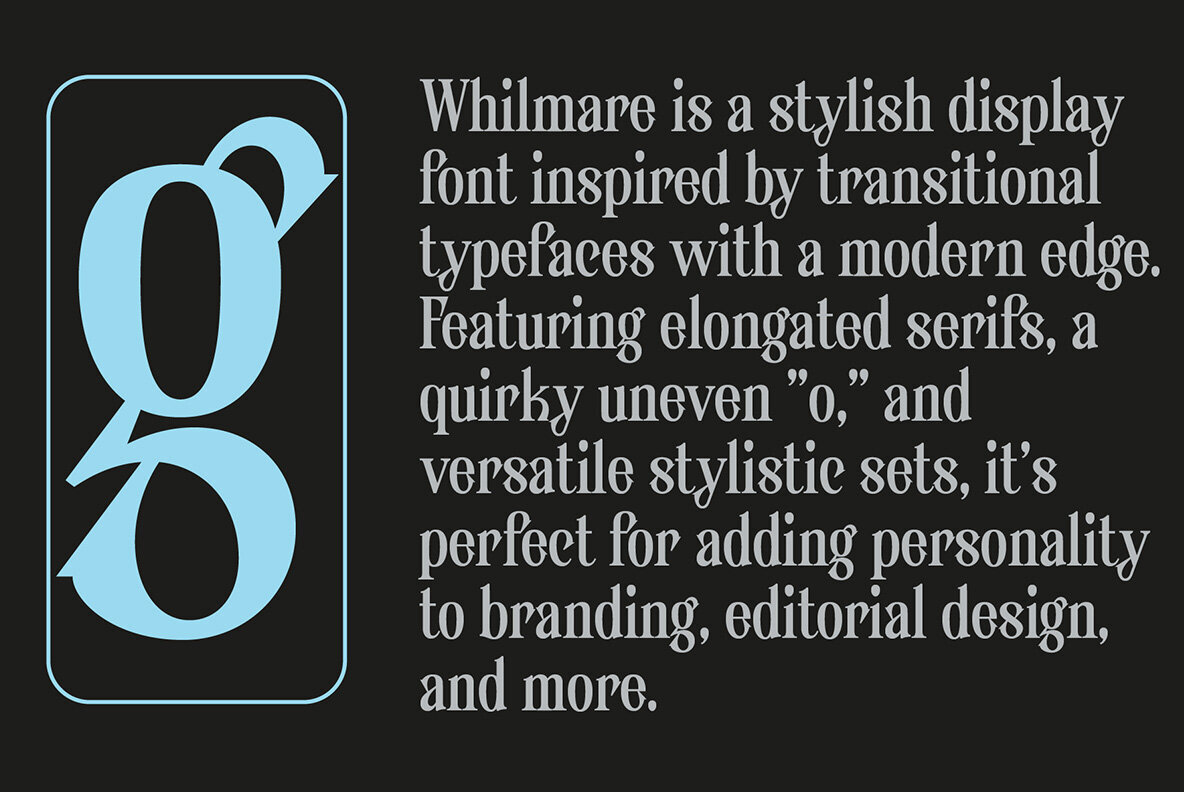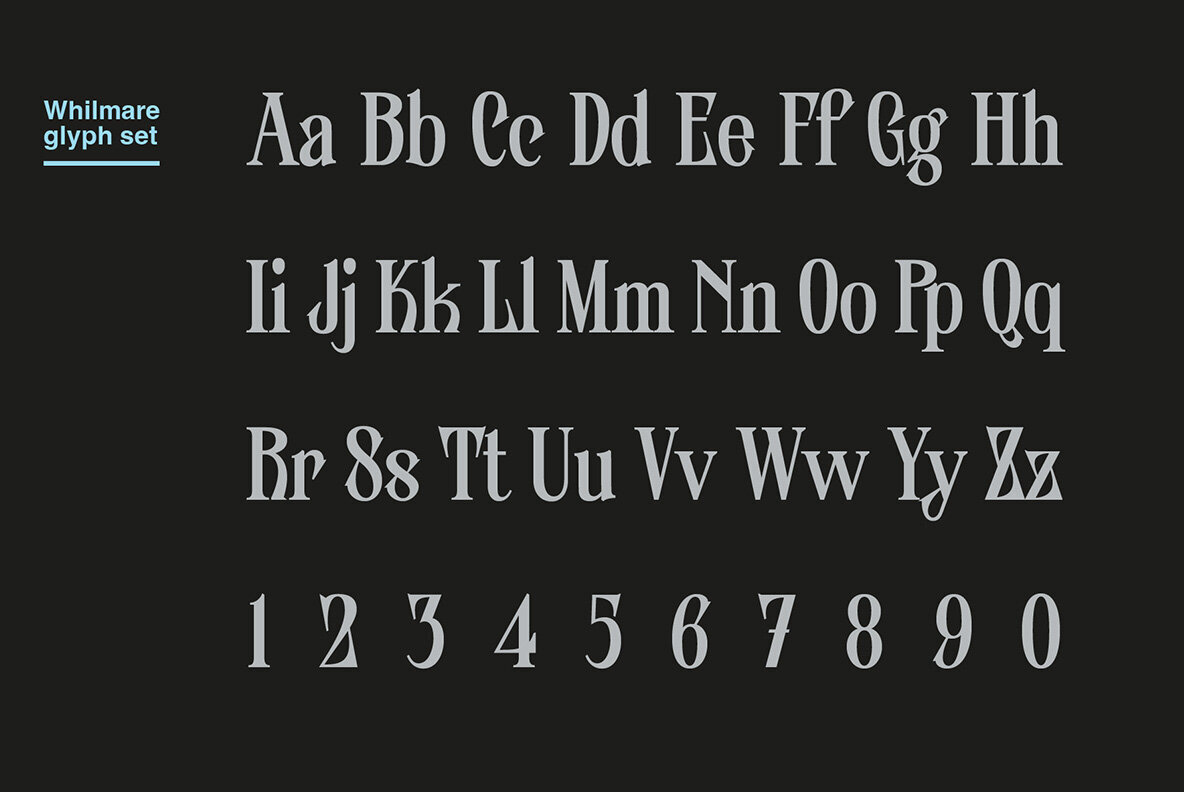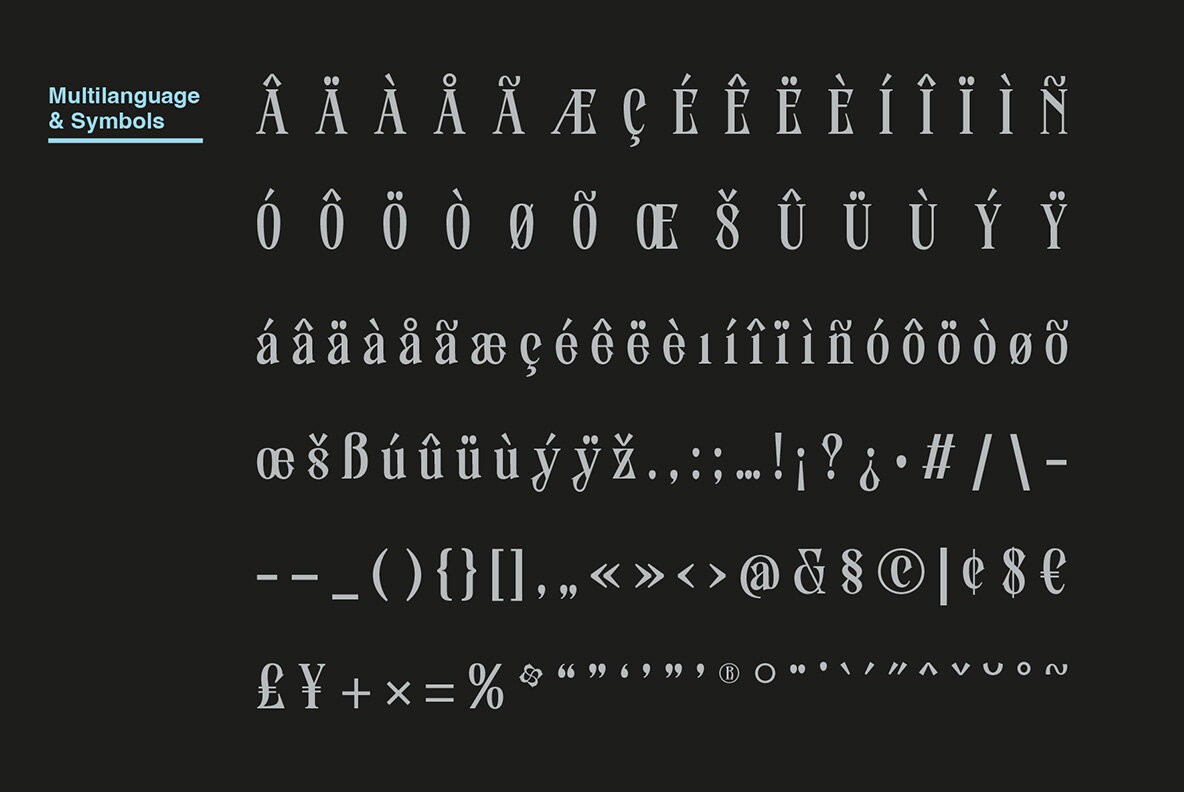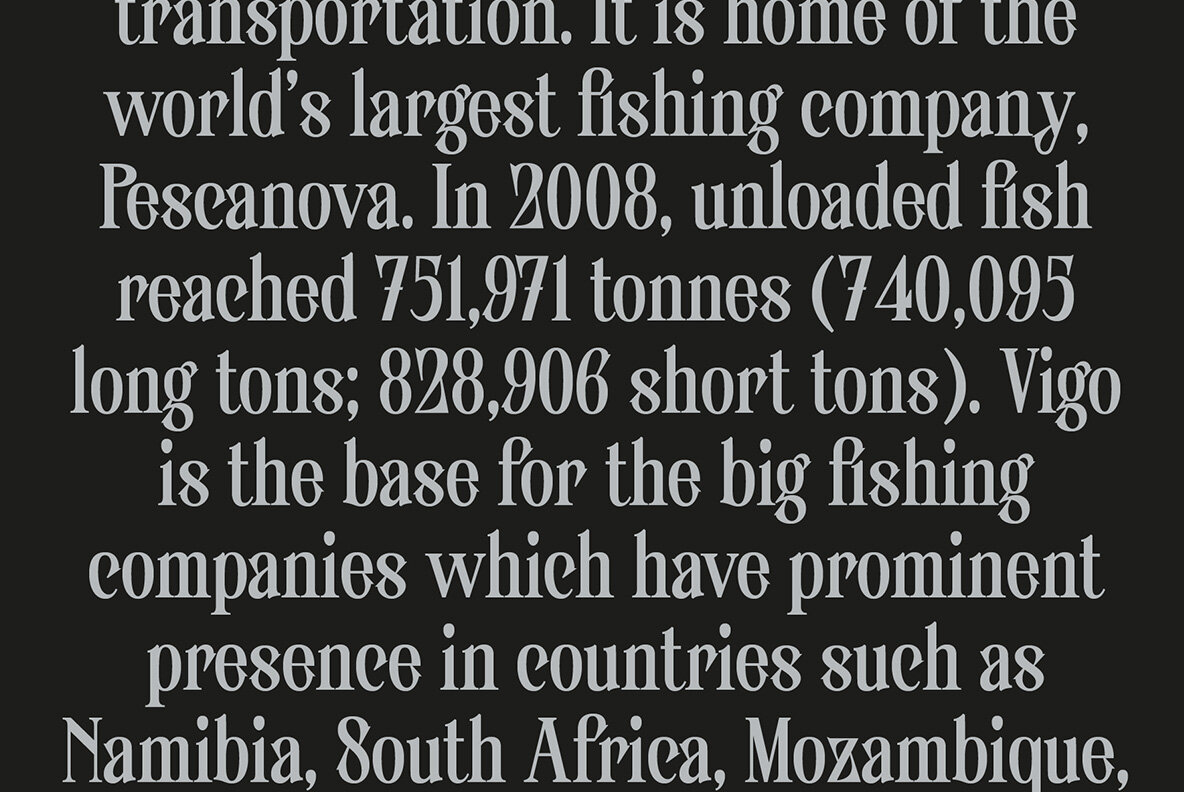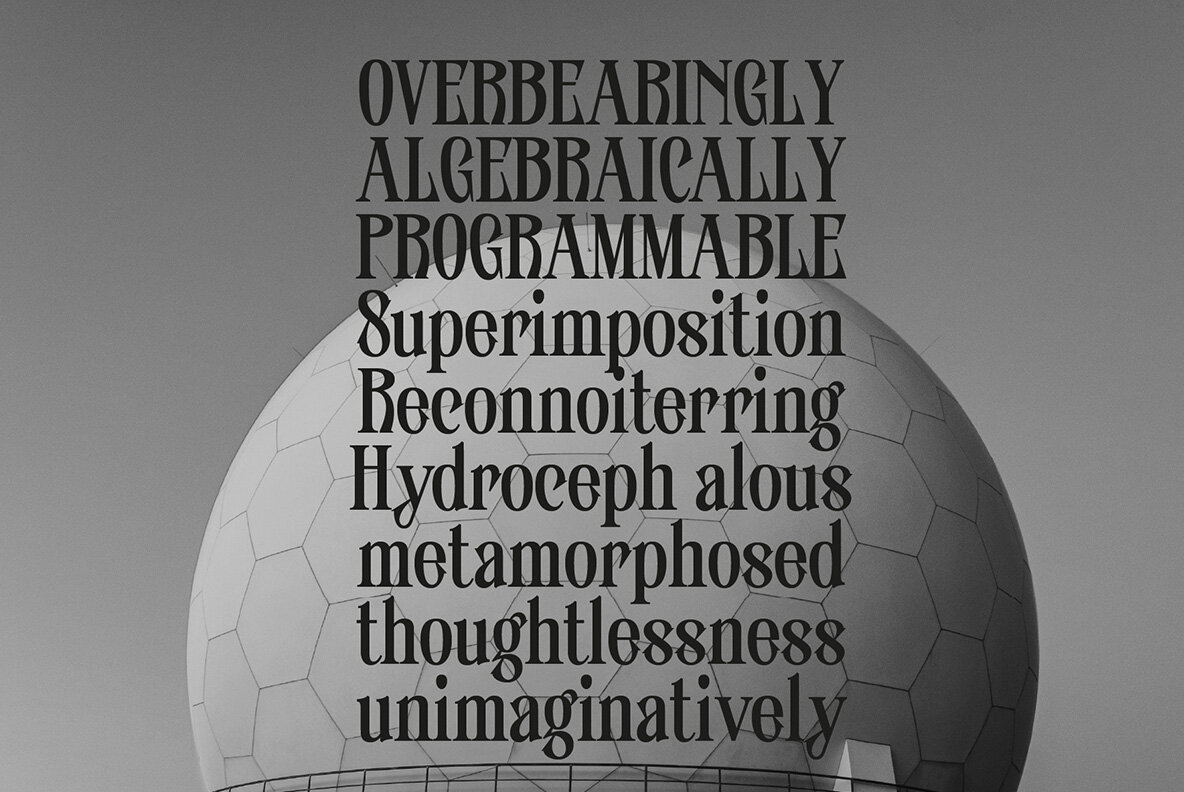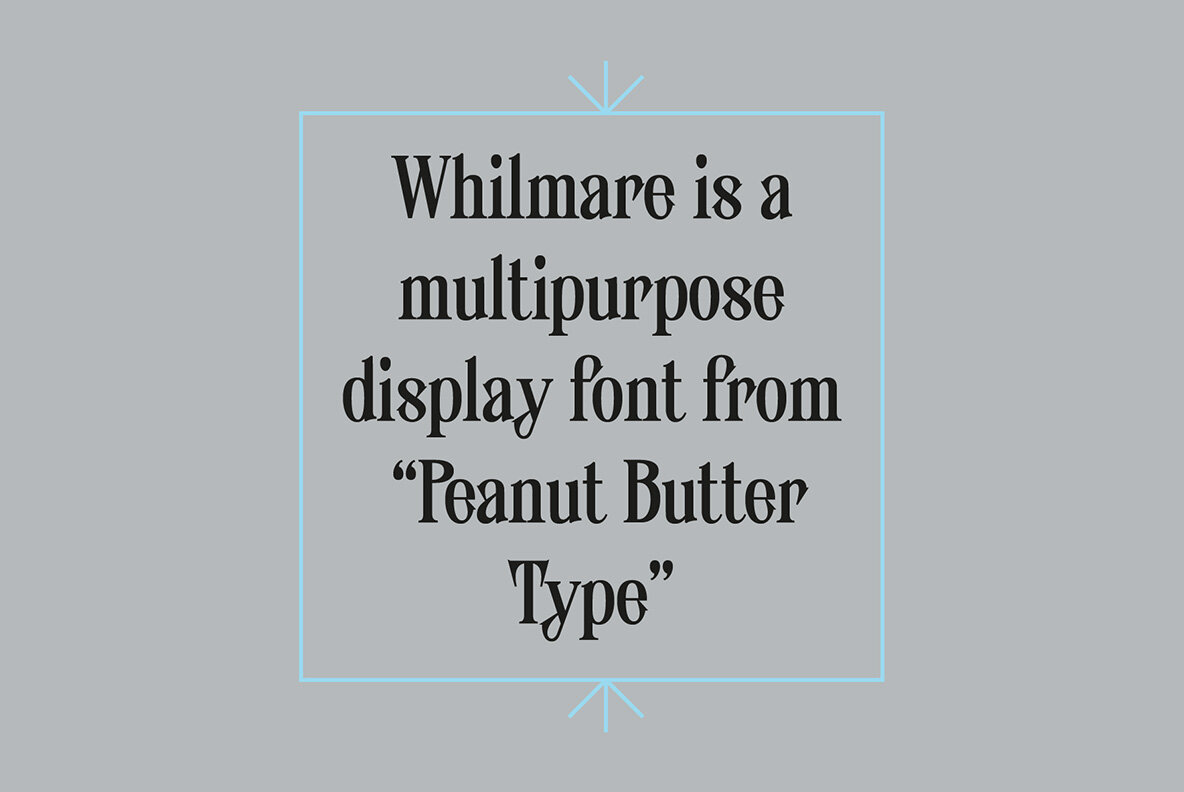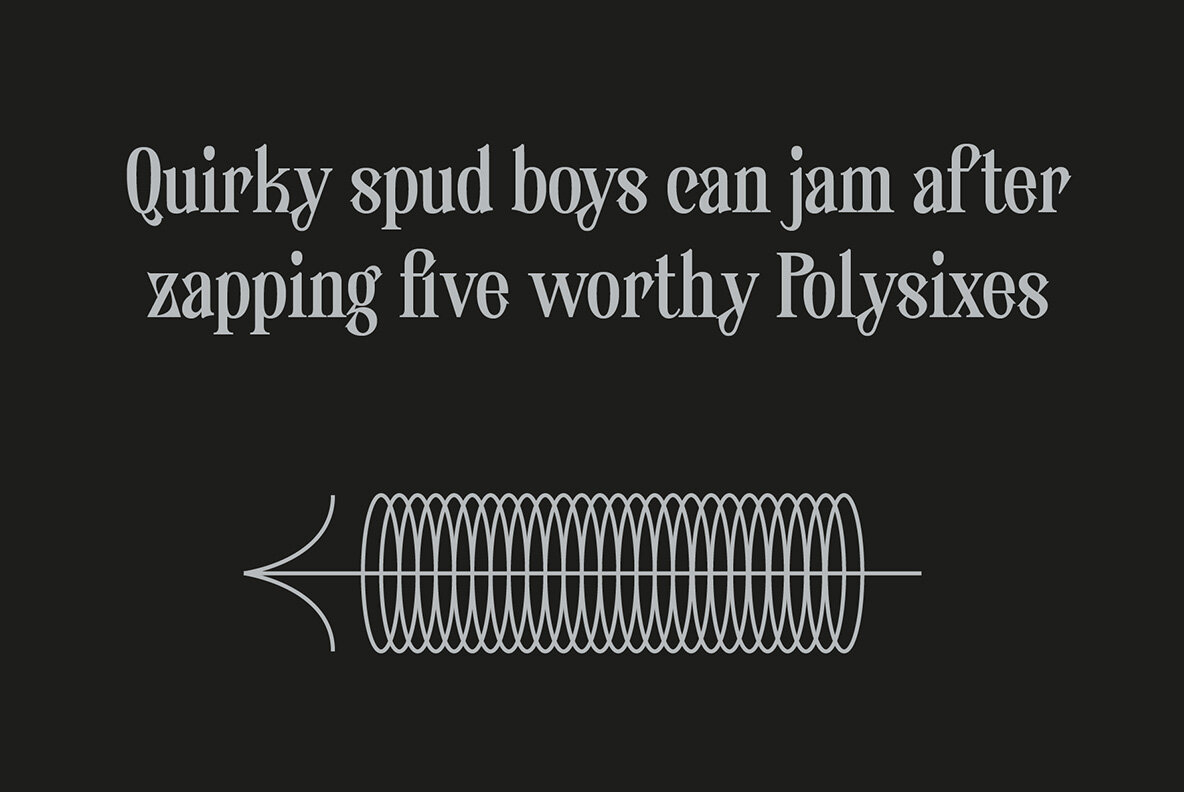
Whilmare Font
Whilmare Regular
Whilmare is a stylish display font inspired by transitional typefaces, offering a modern twist. This typeface features elongated serifs and a quirky, uneven "o," which adds a unique character to its design. Whilmare is perfect for infusing personality into your branding, editorial projects, and more.
With versatile stylistic sets, Whilmare provides designers with ample opportunities to create distinct designs. Its modern edge, combined with the classic elegance of transitional typefaces, makes it an ideal choice for those seeking a font that blends tradition with contemporary flair.